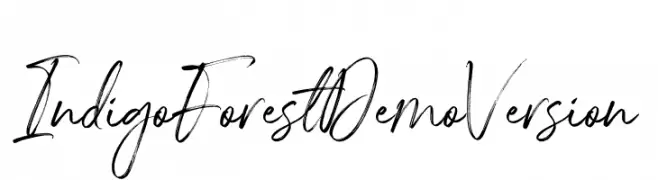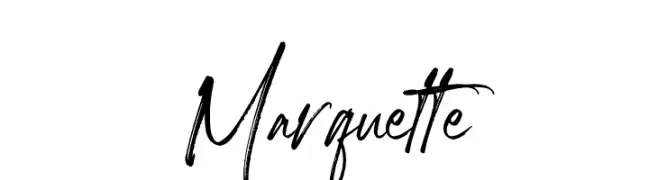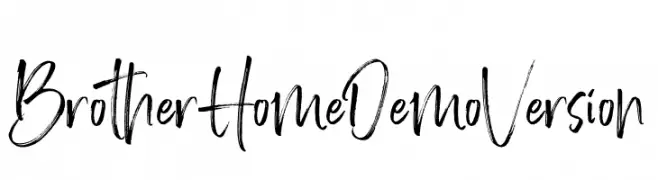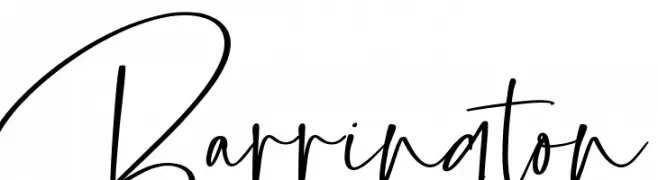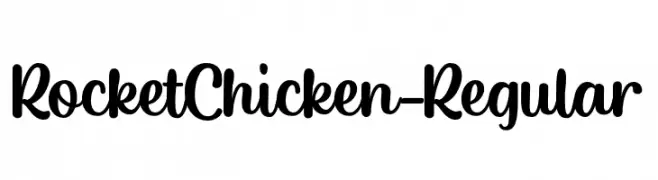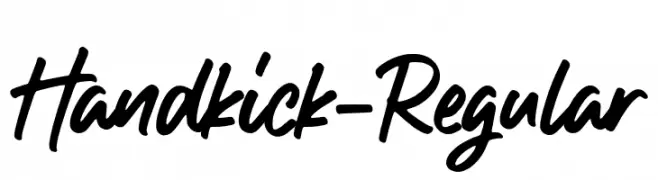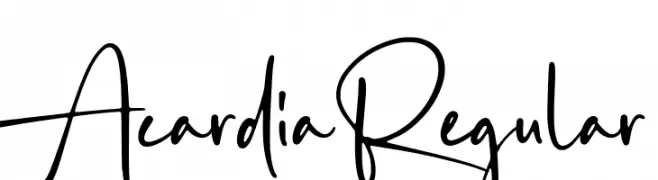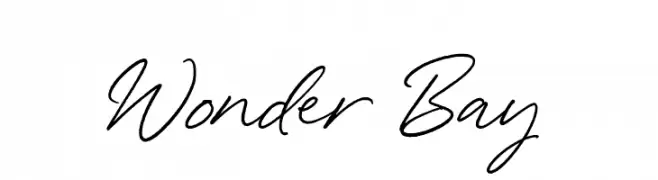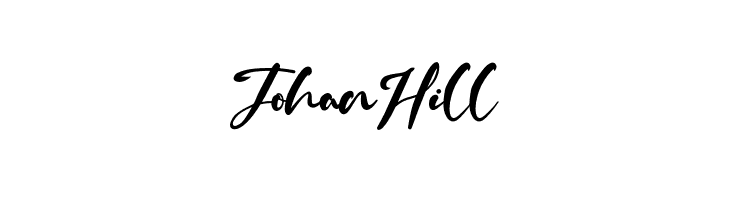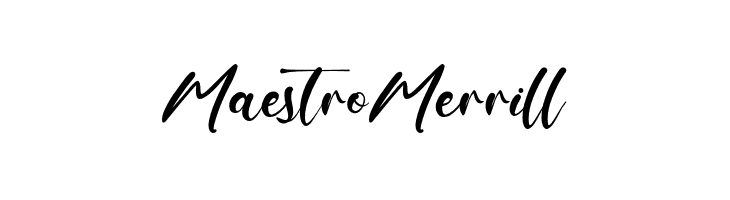
A dynamic, expressive handwritten font with fluid, cursive strokes.
A dynamic and expressive handwritten font with fluid, energetic strokes.
A bold, expressive handwritten font with dynamic strokes and a brush-like texture.
A fluid and elegant handwritten style with dynamic letterforms.
A bold, expressive script font with a dynamic, handwritten style.
A playful, bold script font with smooth curves and thick strokes.
A bold, energetic handwritten font with fluid strokes and a casual style.
A playful, handwritten font with bold strokes and a casual style.
A lively and expressive handwritten font with fluid, cursive letterforms.
A fluid, cursive script font with a natural, handwritten style.